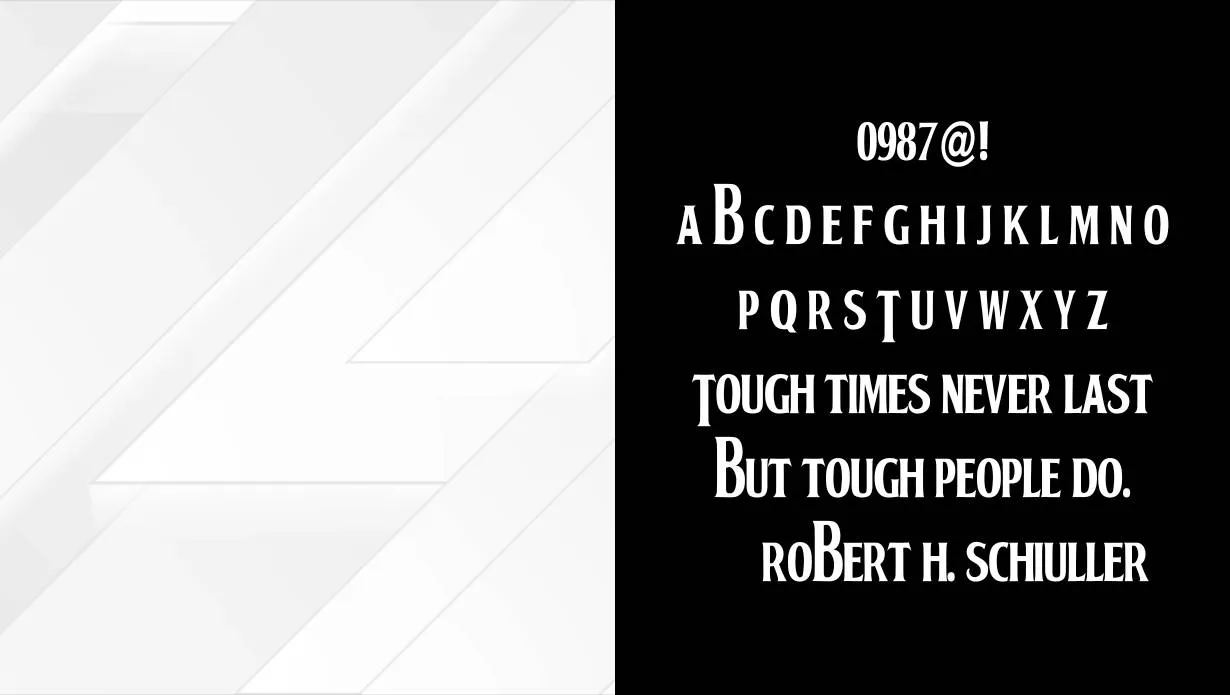
Step into the timeless world of design with The Beatles Font, a masterpiece conceived by Analia Wainer and unveiled in the vibrant era of 1960. This font effortlessly marries modern aesthetics with classic charm, encapsulating a unique design ethos that has stood the test of time.
Belonging to the serif texture family, this font is a versatile gem, poised to enhance an array of designs and projects.